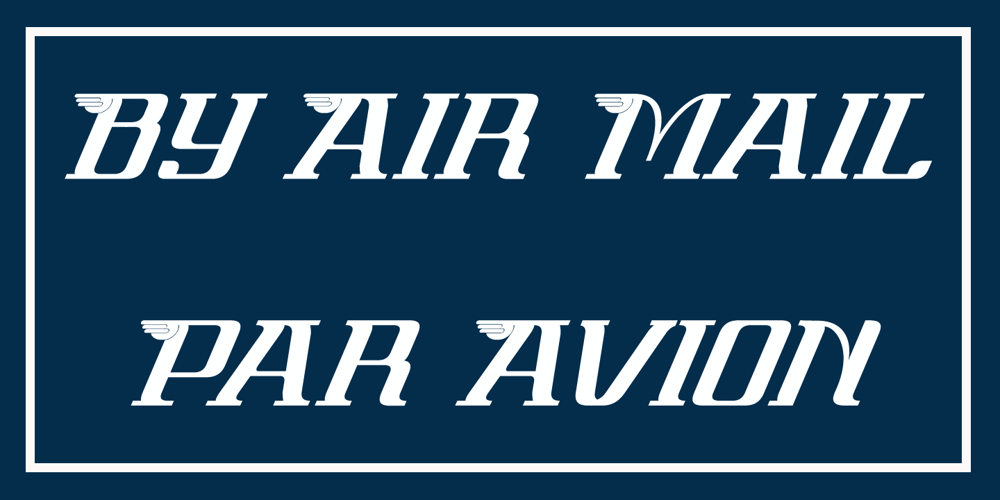
Par Avion
Par Avion font
Par Avion Font Family was designed by Paul James Lloyd and published by Greater Albion Typefounders. Par Avion contains 2 styles and family package options. Par Avion’s design draws something of its inspiration from the wings of the old BSA Motorcycles logo and was developed in parallel with our Vinea typeface family. “Par Avion” means ‘By Air’ – remember those little blue stickers in the Post Office – for sending Air Mail? We think this typeface design has a lovely streamlined feel of the early jet-era about it.